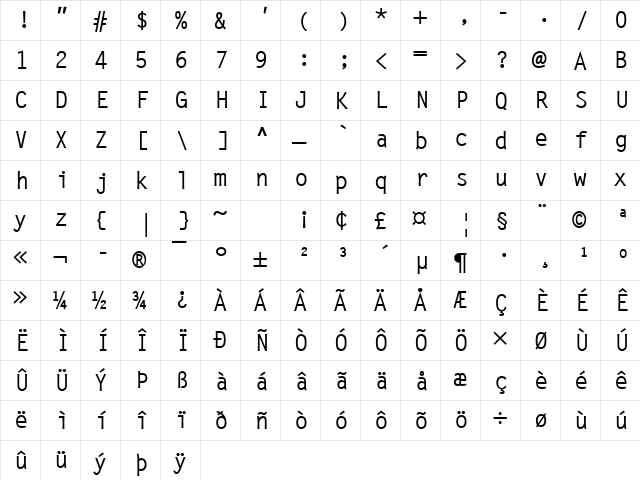
Letter Becker Med Regular Font Preview
Letter Becker Med Regular
Design Context for Letter Becker Med Typeface
Letter Becker Med offers clean, dependable letterforms without strong stylistic allegiance, making it a practical choice for designers who need flexibility.